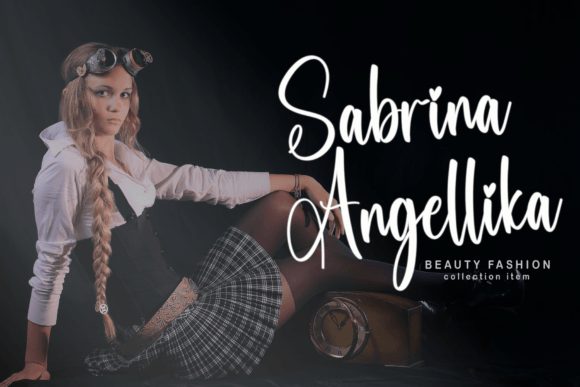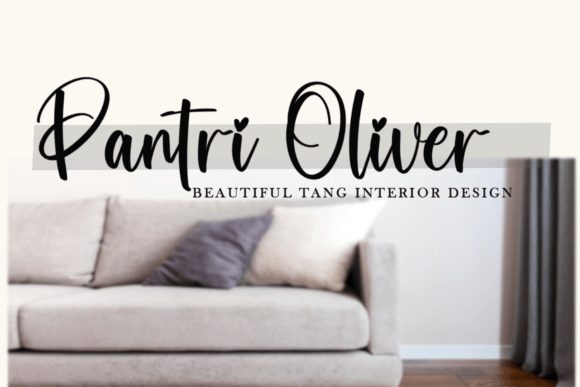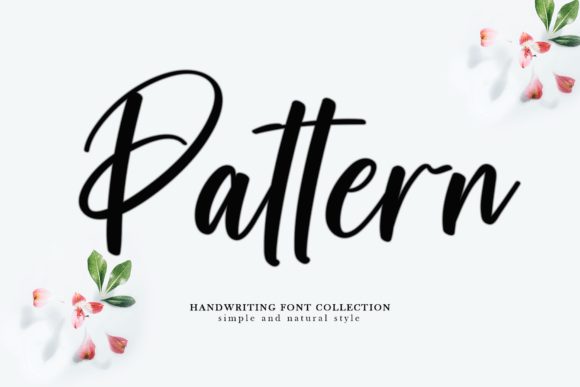
Pleasent Script Font
Hi everyone introduing my newest font called Pleasent.
Pleasent is a handwritten font script with a natural scratch and wrapped with a modern touch of calligraphy. perfect for business cards, wedding invitations, logos, mockups, and all your creative needs.